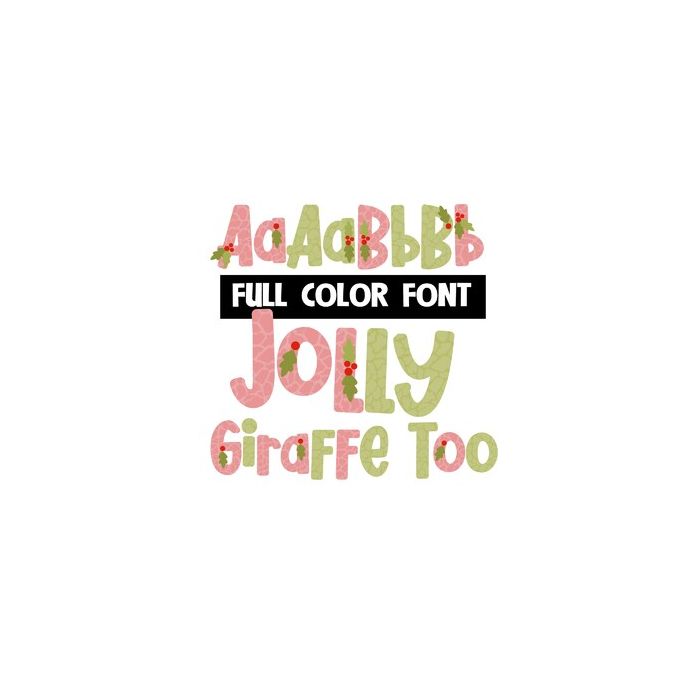
Jolly Giraffe Too Color Font
This full-color font features candy cane stripes throughout in a variety of pastel Christmas colors. There is an alt case of additional colors you can access through your system's glyph map. This font works best for titles, displays, posters and more. Please note color fonts will show as black in non compatible programs. This font type is compatible with Silhouette Studio.